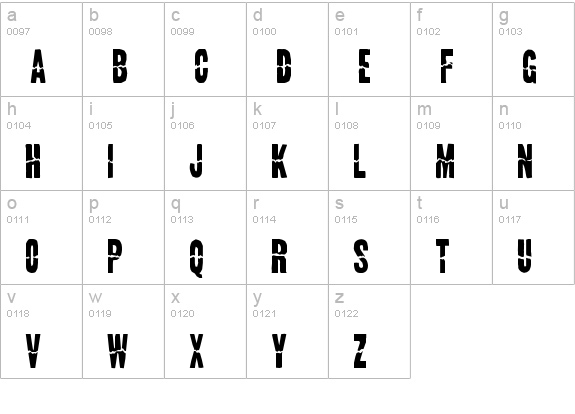
Introducing the Land Speed Record font, a stunning typeface that embodies the essence of speed, power, and daredevil adventure. This font captures the exhilarating rush of breaking boundaries and pushing limits, making it the perfect choice for designs that demand attention and evoke a sense of excitement. Land Speed Record font features bold, dynamic letterforms that exude a sense of velocity. Each character is meticulously crafted with sharp angles and sleek curves, creating a visual representation of the speed at which it was designed to be read. Whether you're designing a poster for a high-octane race, a sports-themed logo, or an adrenaline-fueled website, this font will captivate your audience and leave a lasting impression. What sets Land Speed Record font apart is not just its impeccable design, but also the fact that it is available to download for free at FontsMarket.com. We believe that creativity should be accessible to all, and that's why we've made this font freely available to anyone who wants to add a touch of speed and excitement to their projects. With Land Speed Record font, you have the freedom to explore endless possibilities. Let your imagination run wild as you experiment with different sizes, styles, and color combinations. Whether you choose to use it in headlines, subheadings, or body text, this font will effortlessly elevate your designs and make them stand out from the crowd. Don't miss out on the opportunity to unleash the power of Land Speed Record font in your creative endeavors. Download it for free today at FontsMarket.com and experience the thrill of speed in every letter. Get ready to leave your competition in the dust and make a lasting impact with this exhilarating typeface.